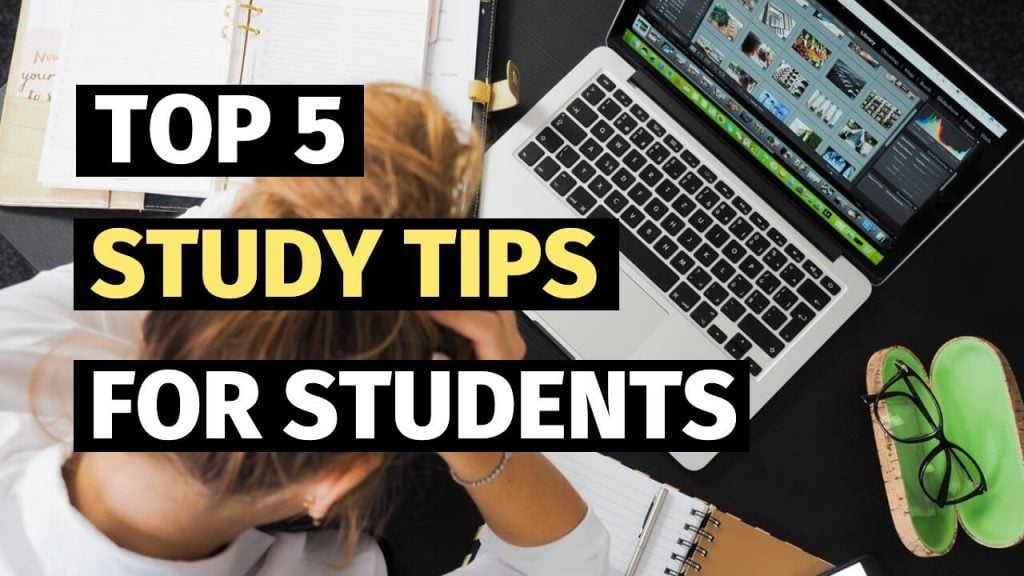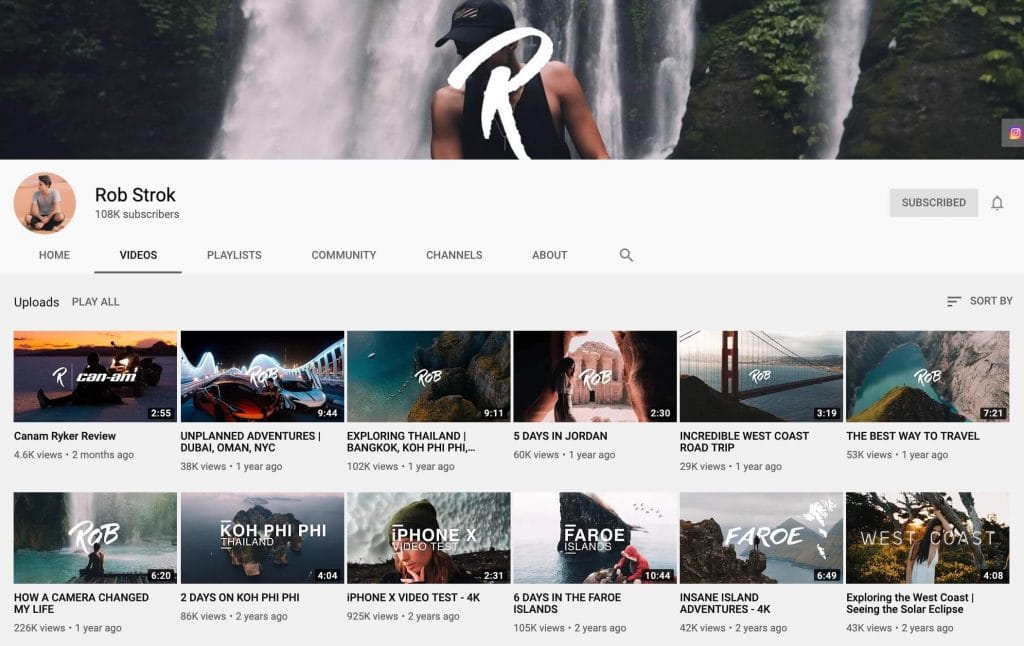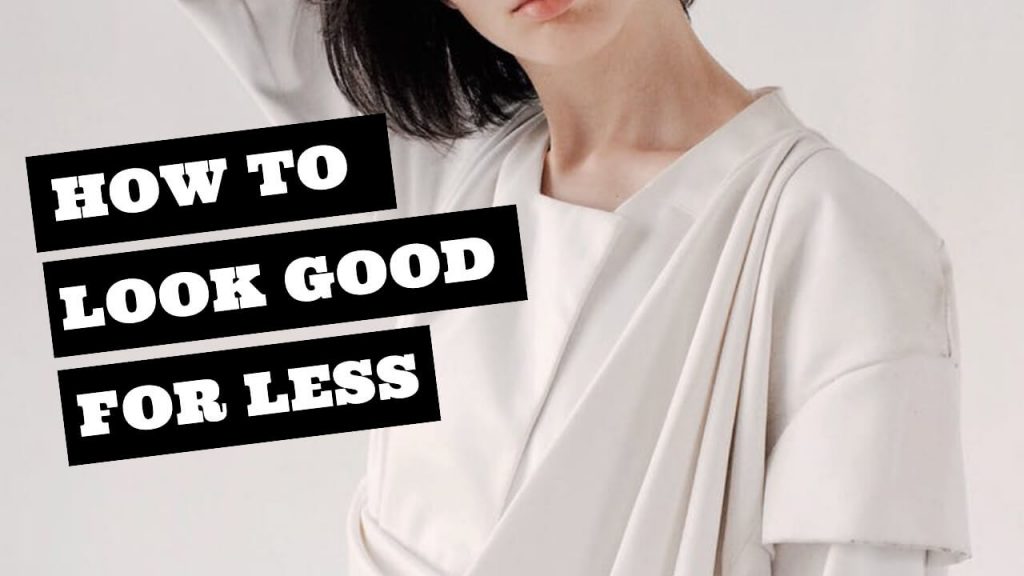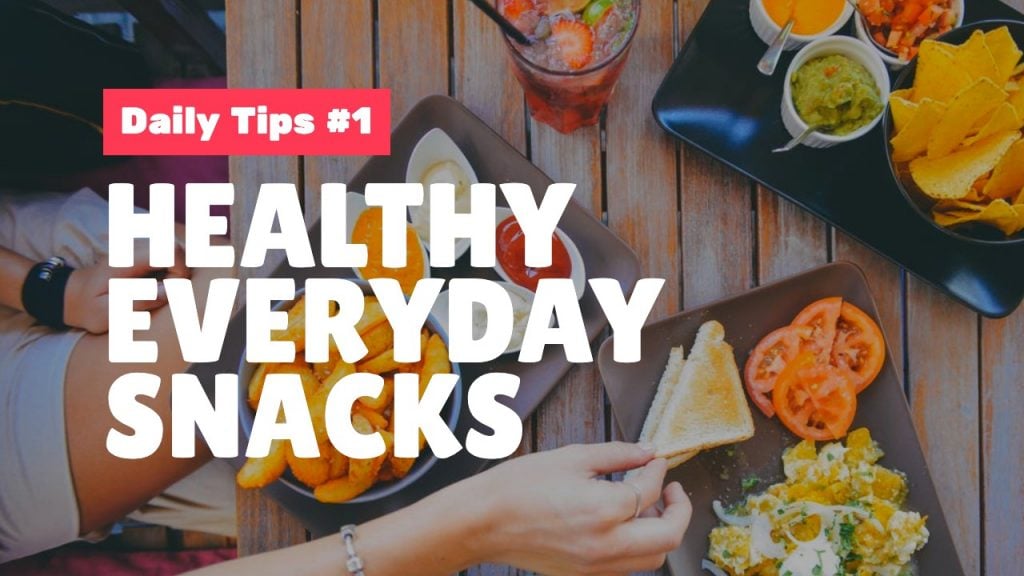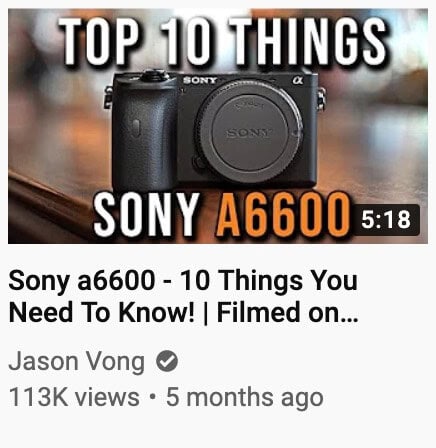
When starting a YouTube channel, there are so many different elements you need to consider in order to gain success on the platform. From YouTube channel art, video descriptions, and video titles – there’s no shortage of things to perfect.
One of the most important aspects of a YouTube channel is the video thumbnail. You need to make sure that your thumbnail is visually appealing and will attract viewers from first glance. A YouTube thumbnail will make or break your video content – it can be the deciding factor for your page!
From the thumbnail design, YT thumbnail size, and the YouTube thumbnail fonts, you need to make sure that everything about the thumbnail is optimized.
In this article, we have compiled a list of the best YouTube thumbnail fonts that will attract views and will help your channel grow! We’ve included thumbnail tips along with mistakes to avoid!
Free YouTube Thumbnail Fonts to Use
There are several characteristics that make up a great YouTube thumbnail font. You want to make sure your thumbnail font style fits the theme of the video. Additionally, the font you pick for your YouTube thumbnail needs to be clear and easy to read from afar.
Bangers
Anton
Lilita One
Ultra
Fire Sans Extra Bold
Montserrat Extra Bold
League Gothic
League Spartan
Other Notable YouTube Thumbnail Fonts
Best YouTube Thumbnail Font Tips & Tricks
When choosing a YouTube thumbnail font for your video there are a few things you should consider to best optimize your thumbnail designs.
Stay Consistent in Your YouTube Text
There are tons of fonts on the web today, but you want to make sure that you’re choosing the best font for your YouTube channel. Whichever font combination you pick, you want to make sure that you’re using it throughout your visuals to keep it consistent.
Stand Out with Your Thumbnail Fonts
You can choose stand out fonts by selecting ones that are thicker and more bold. Using aesthetic fonts that are bold and contrast well with the video thumbnail is ideal.
In the example YouTube fonts that I’ve provided above, the fonts are all heavy, yet they’re very easy to read from afar.
To help your fonts stand out, you can add a drop shadow to your font and a slight blur so that the text looks like it’s popping out.
Optimize Font Sizes for Multiple Devices
The key is to size your font so that it isn’t too big where it covers the full thumbnail design, yet isn’t too small where you can’t read what the text says.
There needs to be a balance so that the thumbnail font is large enough to be read on both mobile devices and on televisions!
Stick to a Color Palette
The best thumbnail designs typically stick to a cohesive color palette. You want to make sure that your font color compliments your thumbnail design and that the two work well together. You can check out our blog post to find color palette inspiration!
Align Your Font Strategically
I’ve seen YouTube thumbnail fonts that are aligned to the left, right, and center of the image. These alignments all work, but when you’re aligning your font, you need to be strategic and make sure the placement suits the overall design.
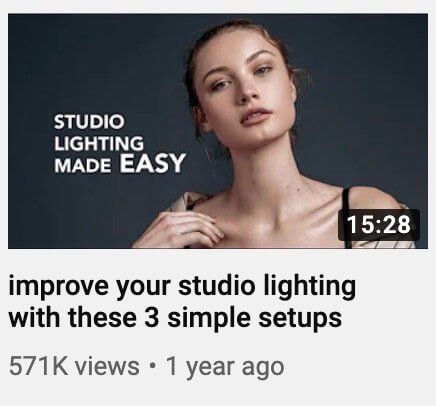
Your thumbnail text should not be covering the important elements of a photo so it’s important to adjust the font alignment where it makes sense.
The Best YouTube Thumbnail Font Examples
If you’re looking for some font inspiration, you can have a look through YouTube and some popular videos to see what works. To help you visualize some good image text, I’ve outlined some of my favorite thumbnail fonts from various YouTube channels!
The first thumbnail is from Round Two’s channel where they highlight their experience at the Super Bowl weekend in Miami. They’ve aligned their font in an appealing way and use a drop shadow to help the text pop. Additionally, the use of pastel colors in their thumbnail text add a nice Miami touch to it!
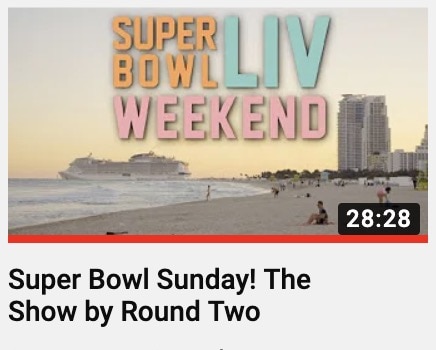
The next thumbnail example is from the fashion and lifestyle channel called ToThe9s. Before getting into the text, they use a cool image design by collaging their professional photos.
With an image design that’s already somewhat busy, they’ve added a simple Hypebeast font across the center of the design. The text gives you enough context to know what the video is about, but makes you want to click to see more.
In our next example, Monica Church uses a background overlay behind her text to help her text stand out. Adding a background overlay will allow for more options when it comes to coloring and something like this design can work perfectly for makeup tutorial videos or travel videos!
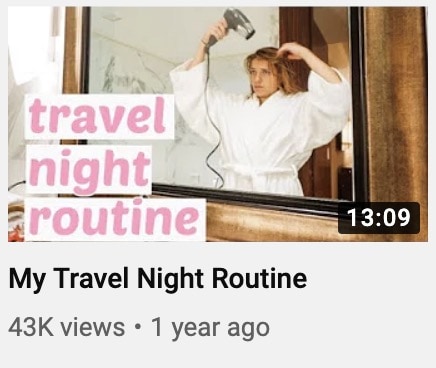
Make sure the font you use is bold and easy to read from afar and up-close on mobile devices. Choose text that is relevant to your brand and stay consistent with it throughout your channel.